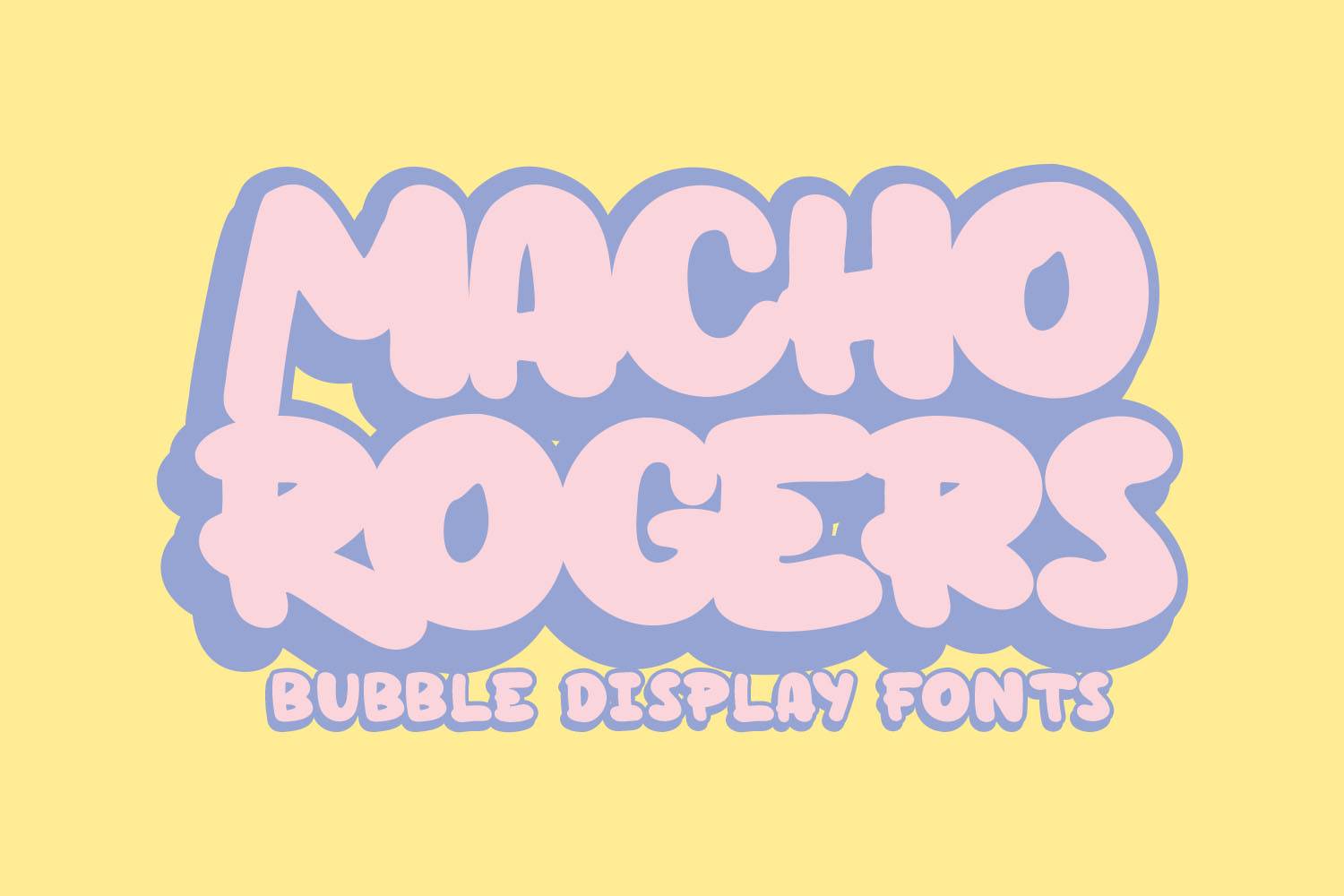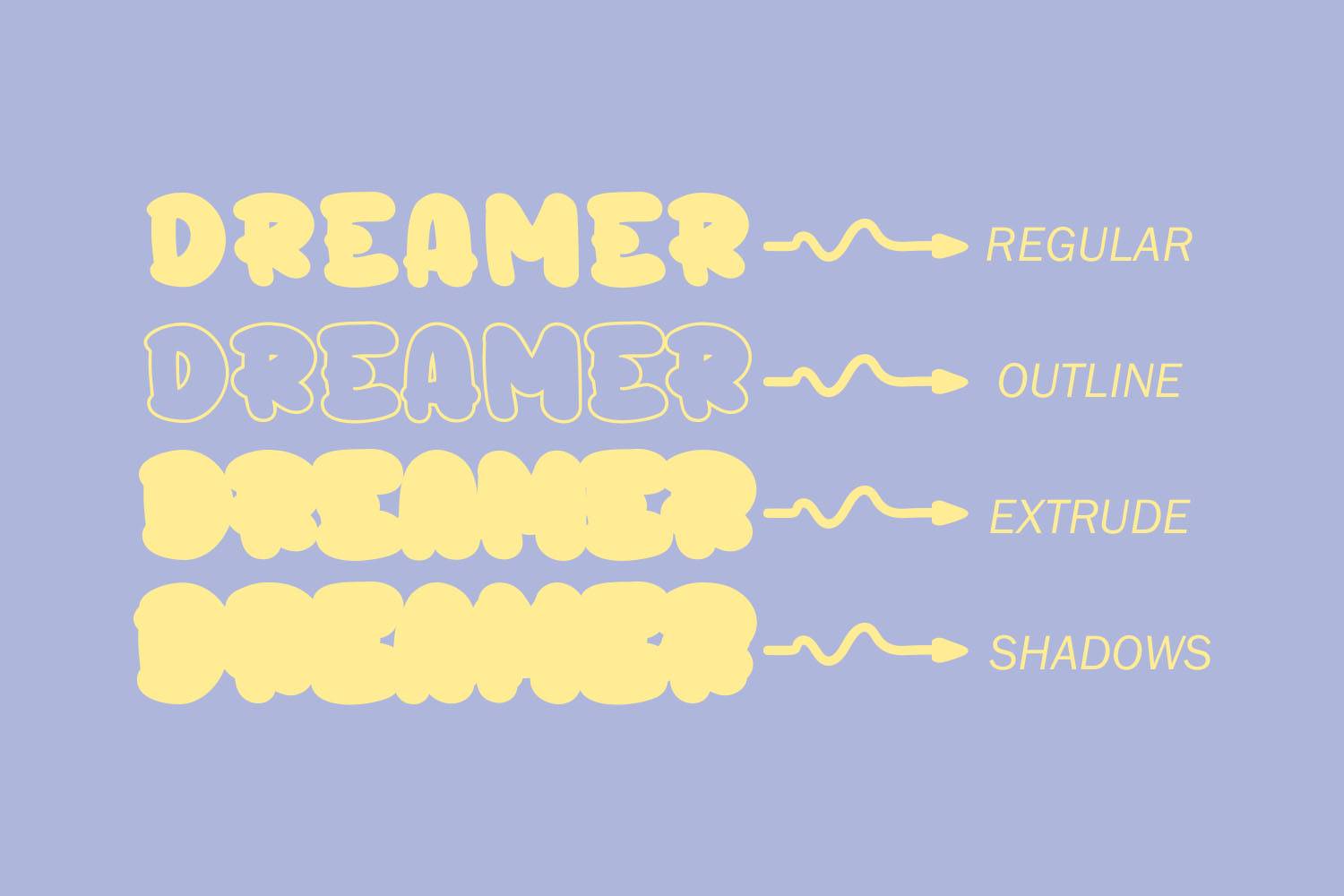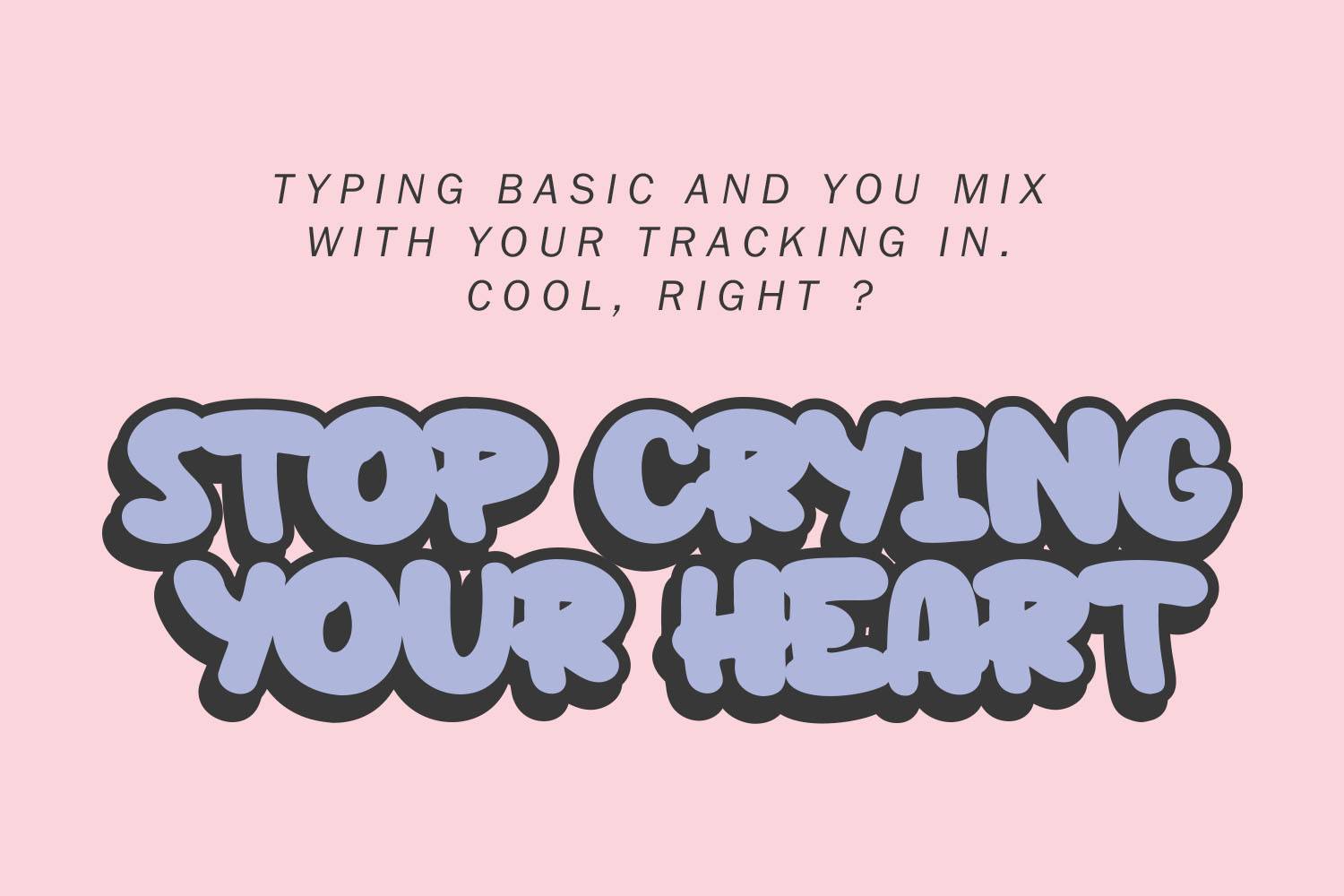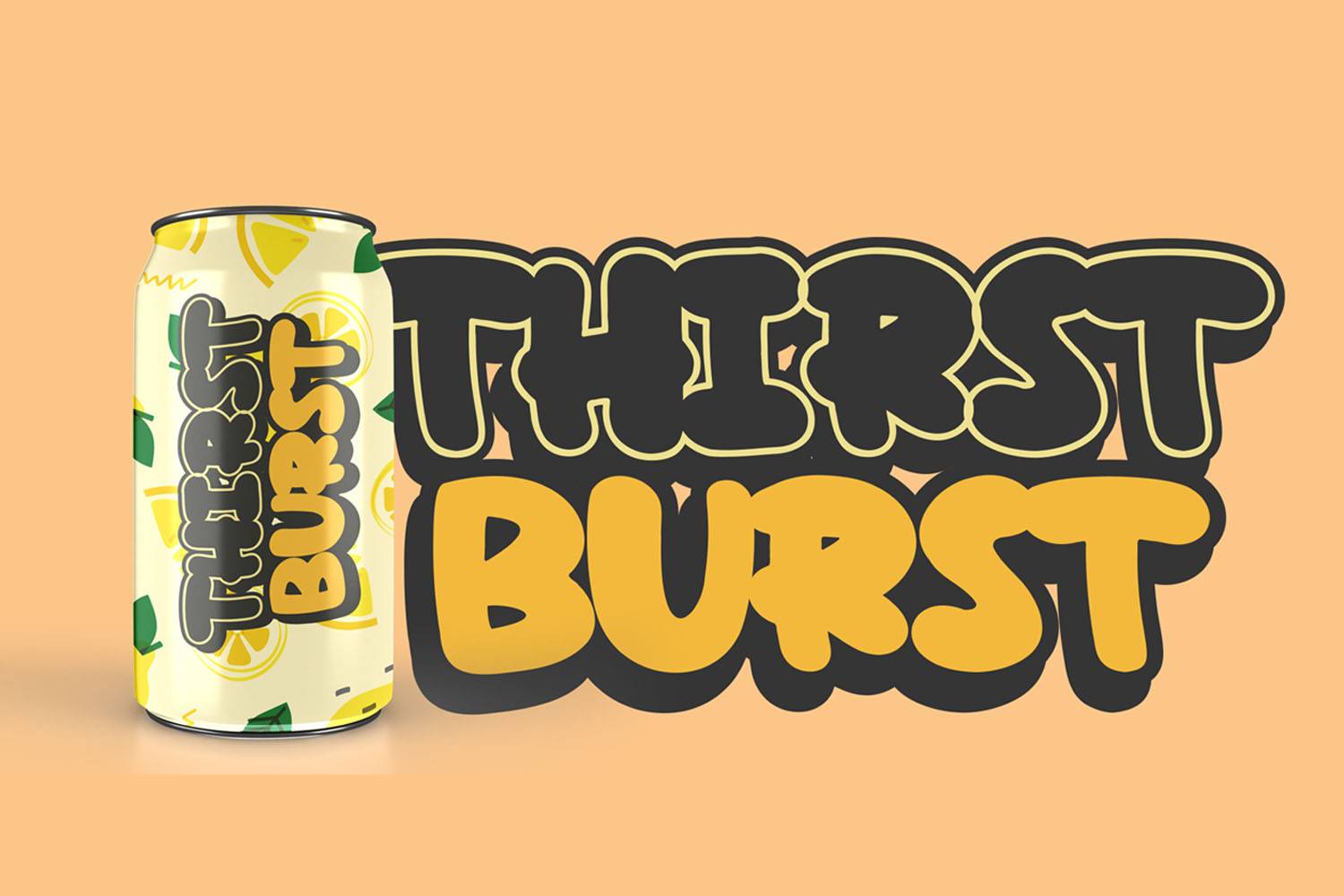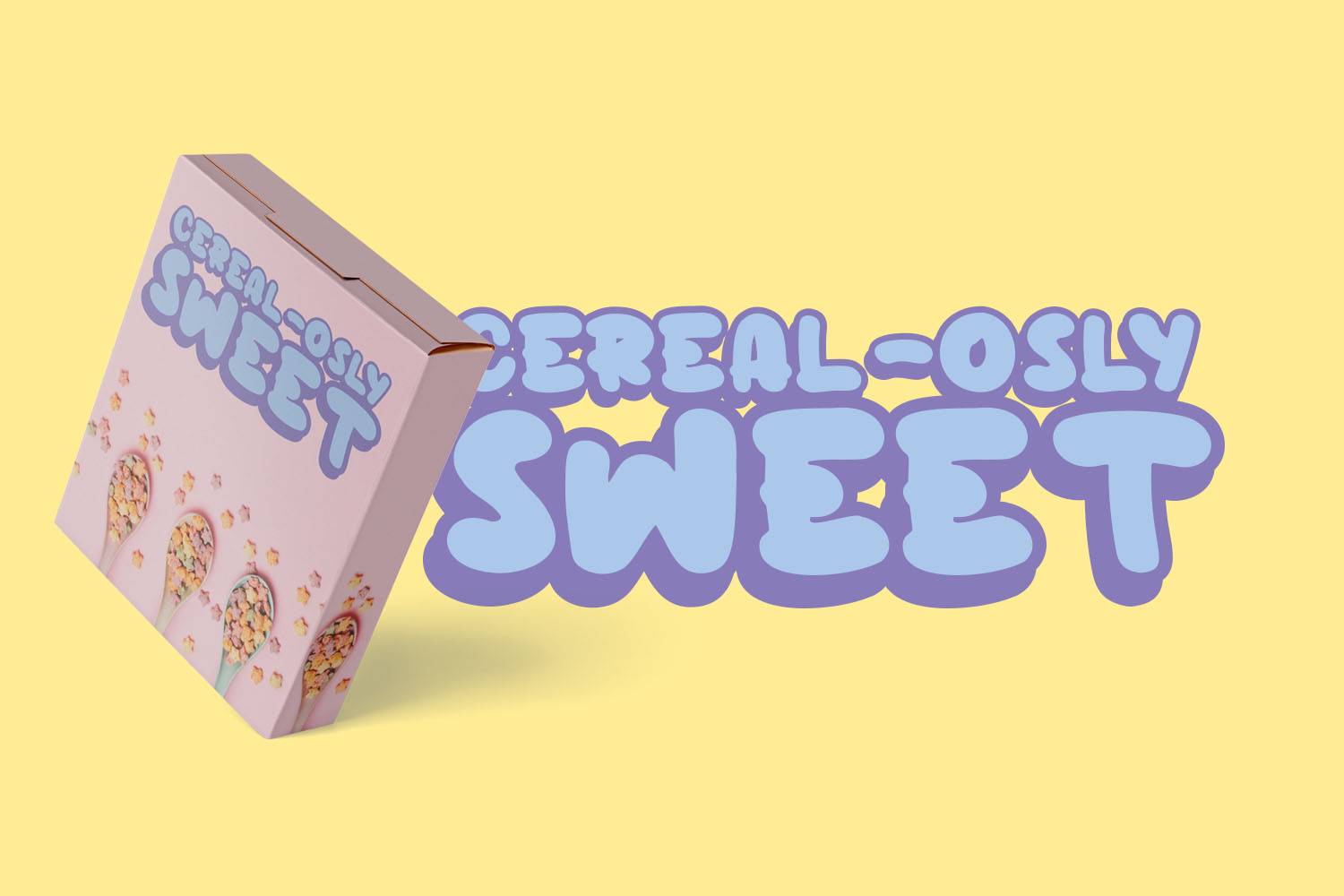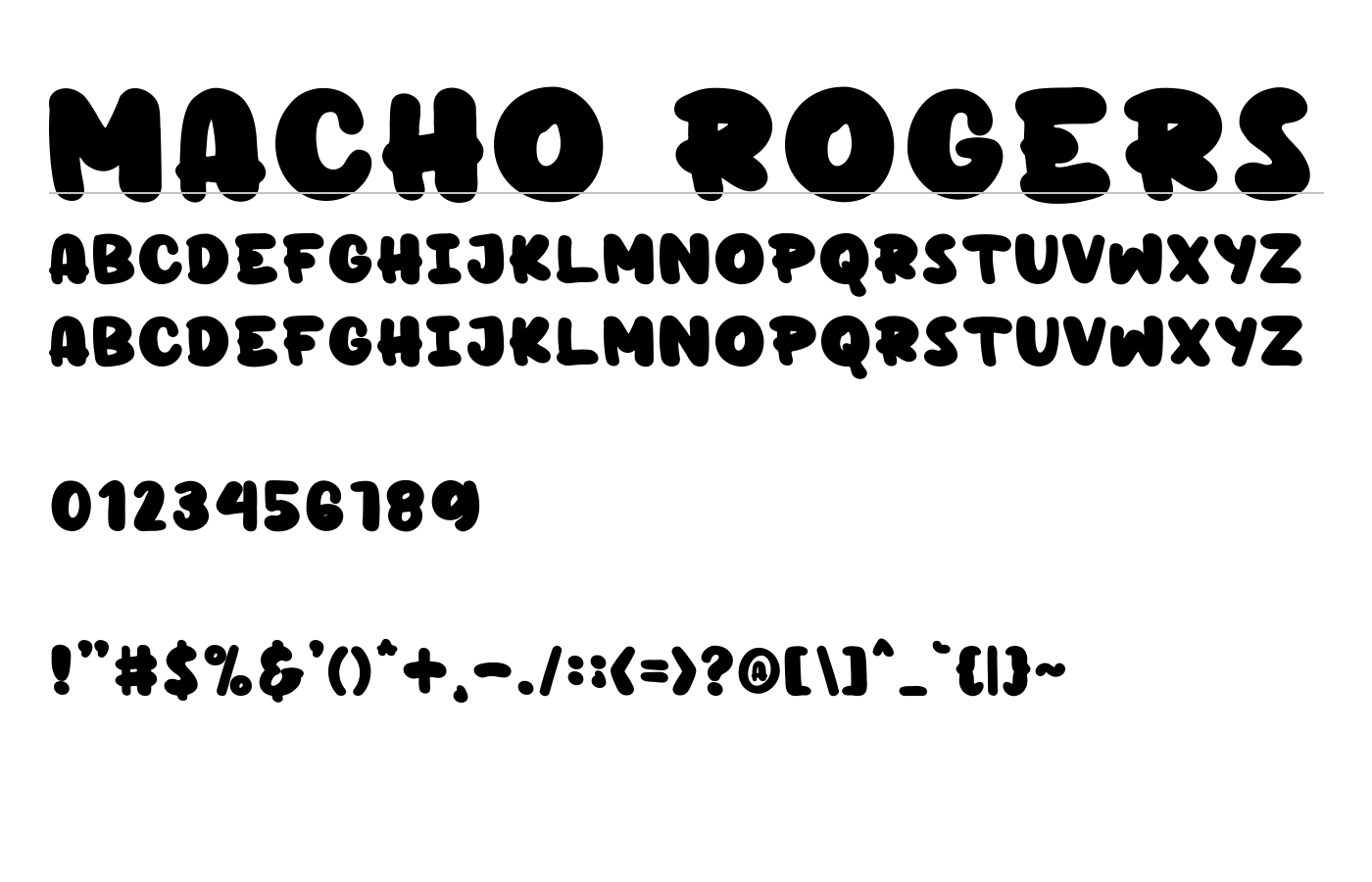
Macho Rogers is a bold, playful sans serif font with thick, rounded letterforms that give it a friendly and approachable feel. Its high x-height and tightly spaced characters make it eye-catching and ideal for headlines, logos, and fun branding projects where a casual, energetic vibe is desired. This font works best in designs that aim to convey warmth and creativity, such as children’s products, entertainment, or informal marketing materials.
Macho Rogers Font
About Macho Rogers Font
| Font family | Macho Rogers Font |
| Designer | Stefie Justprince |